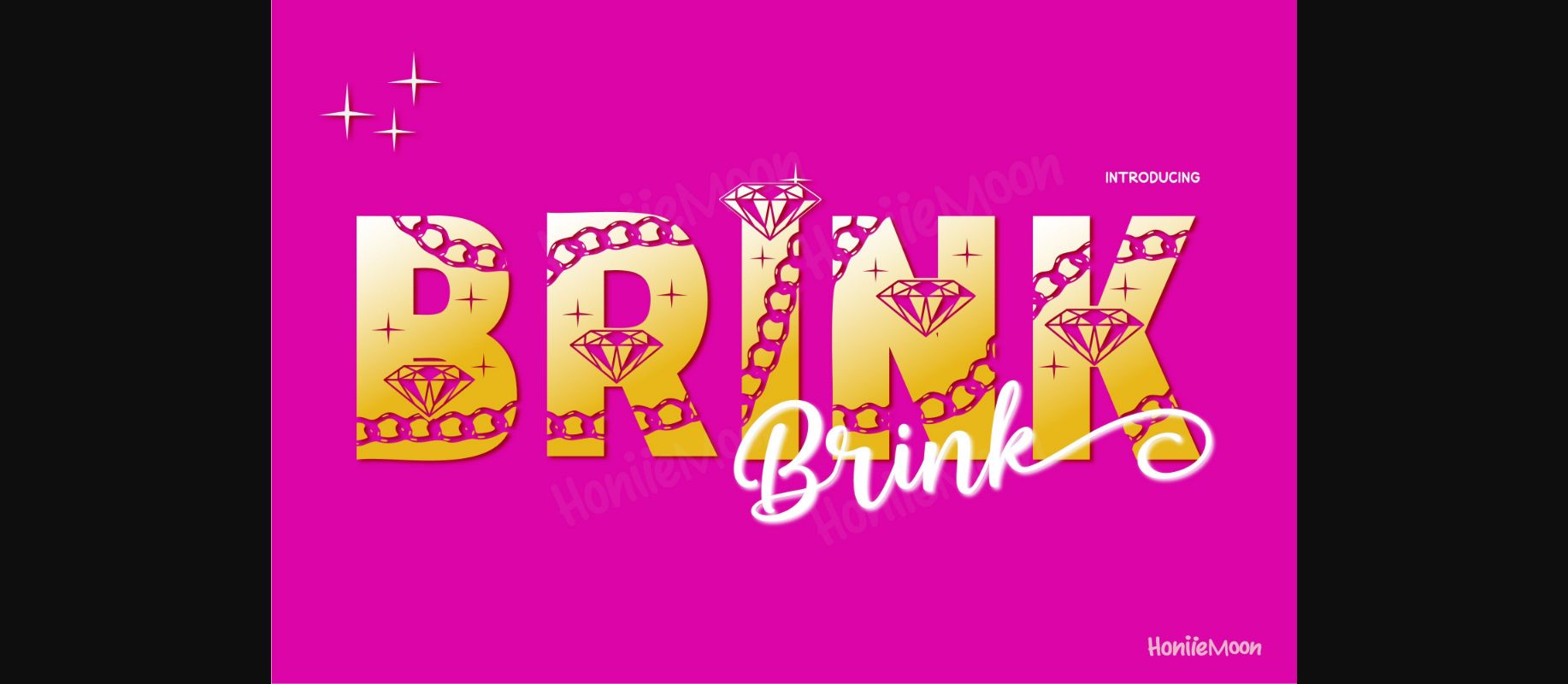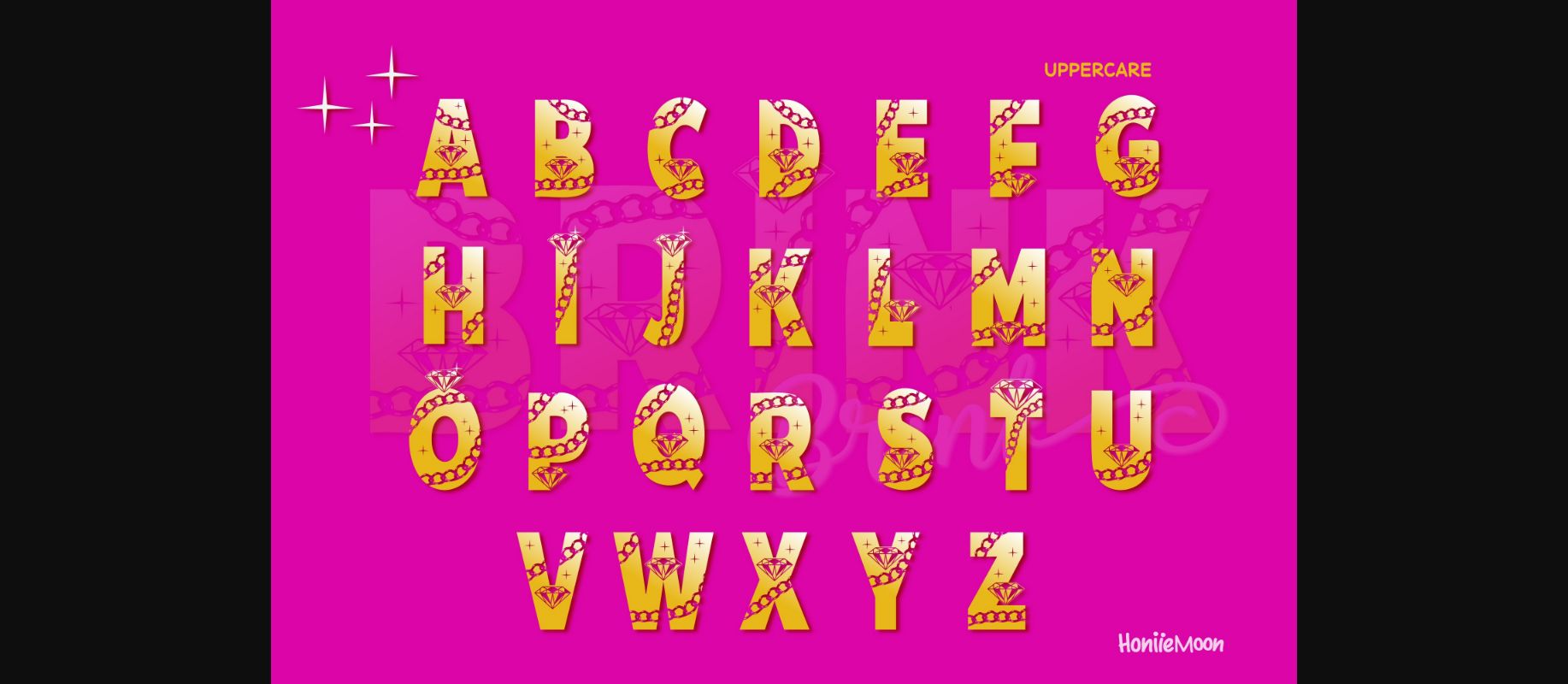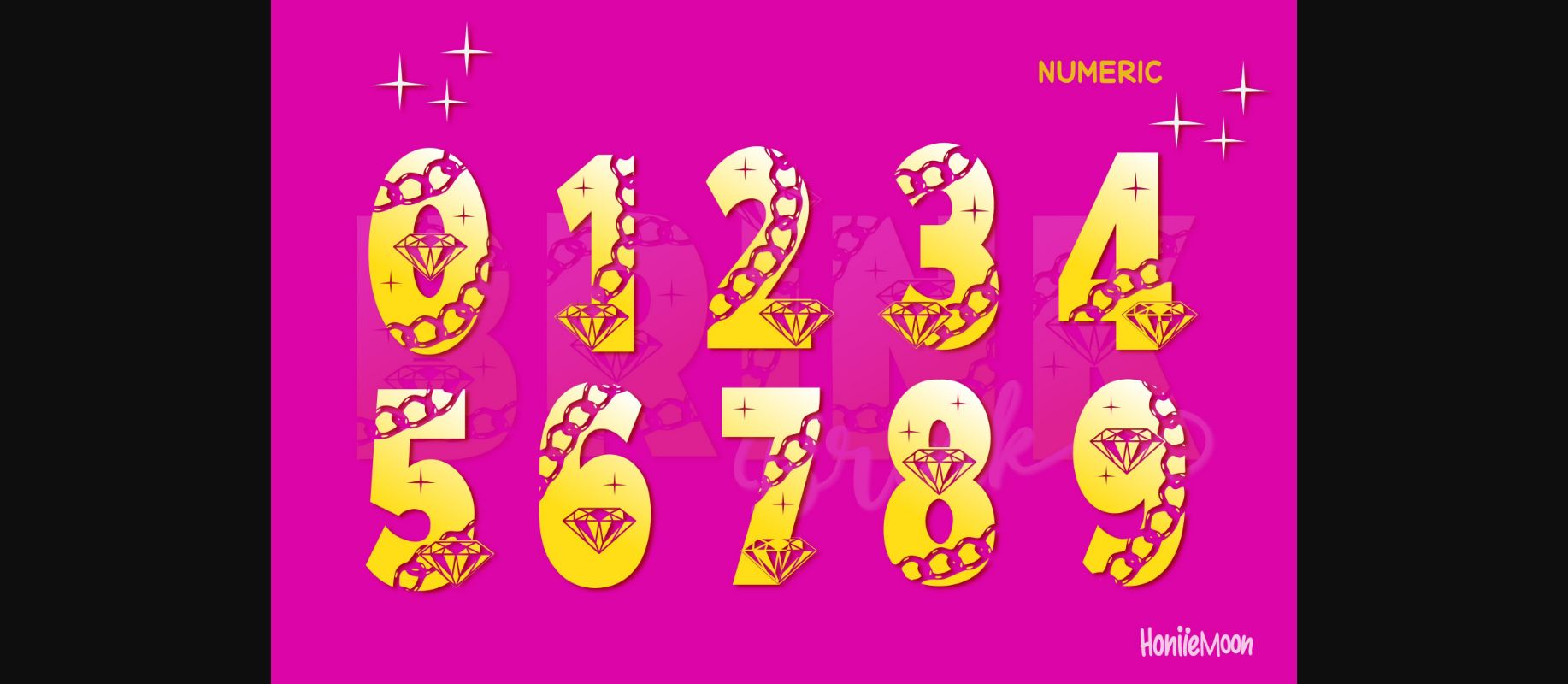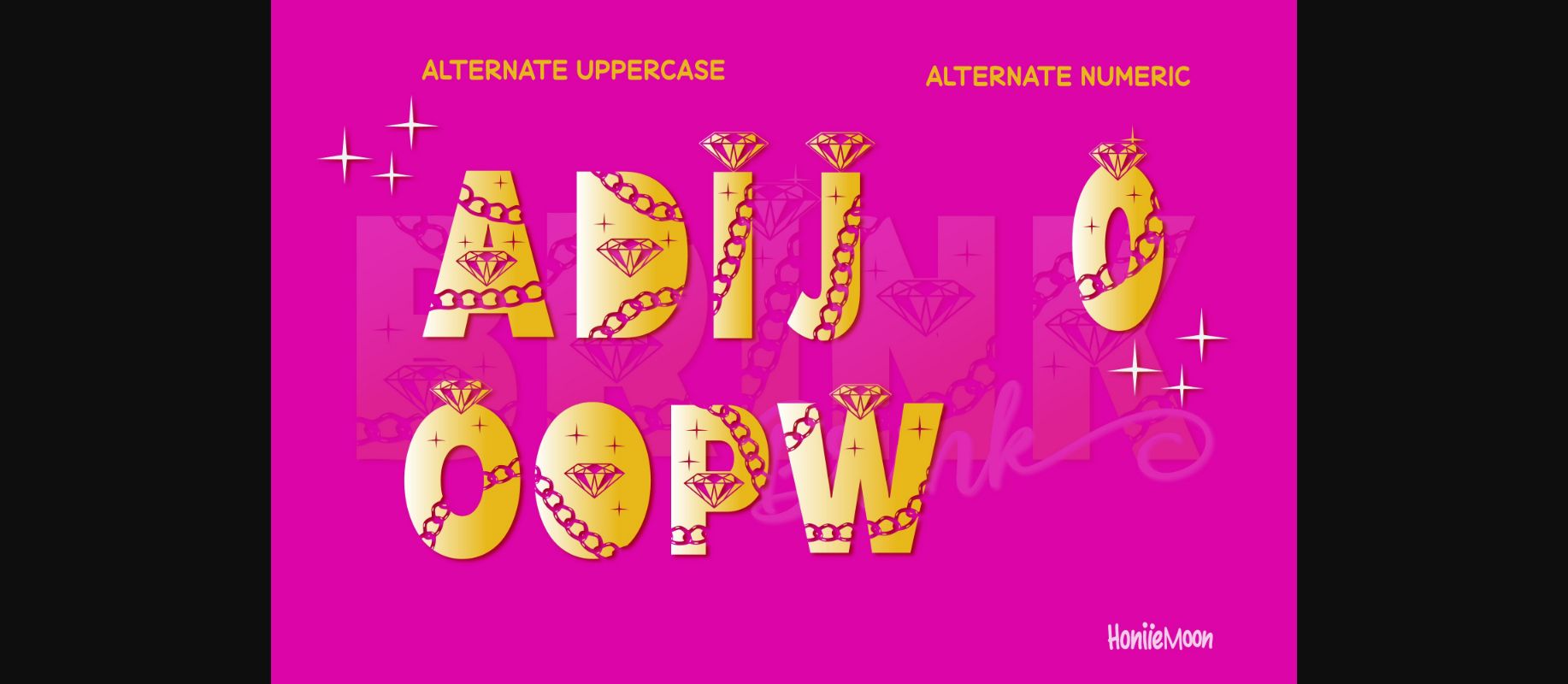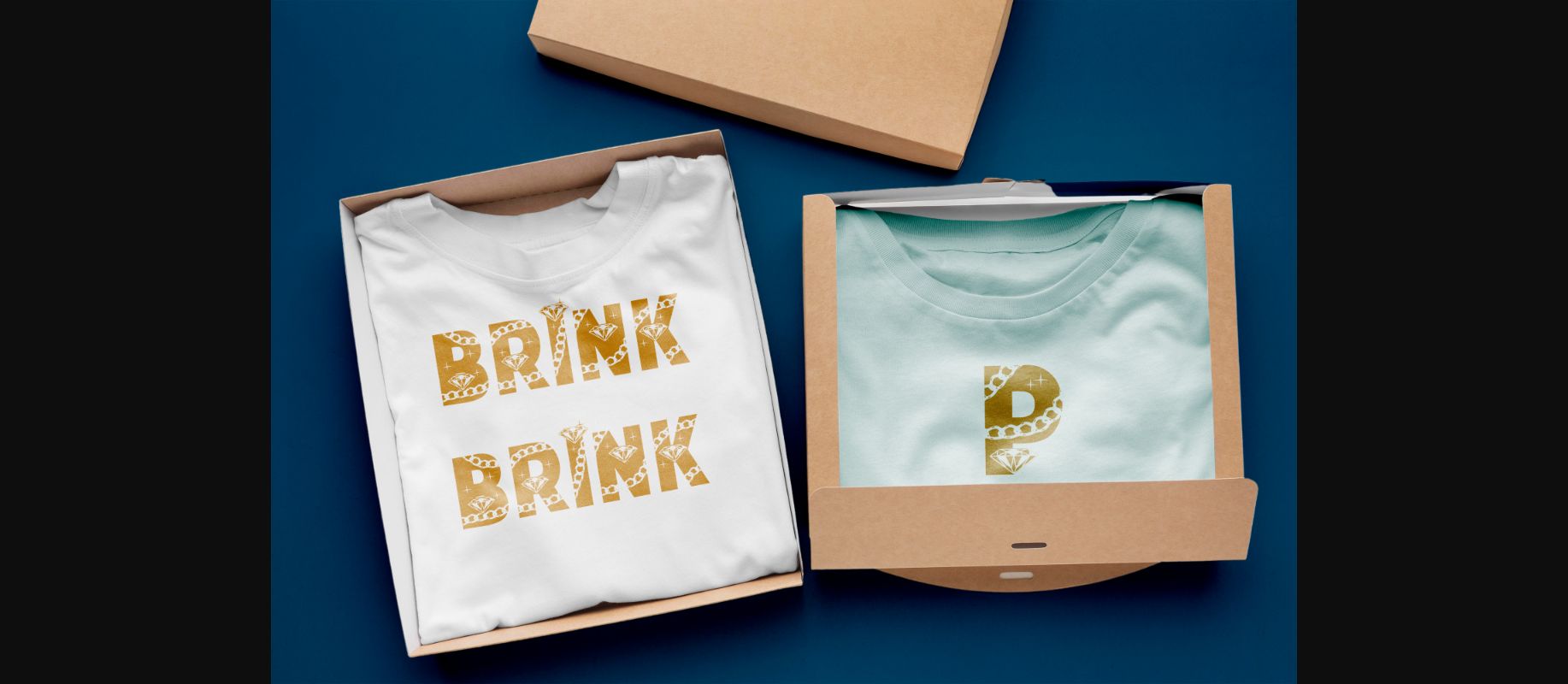
HomeDecorative FontsBrink Brink Font Decorative Fonts Brink Brink Font FacebookXPinterestWhatsApp 1 of 7 ... Brink Brink Font Poster 2... Brink Brink Font Poster 3... Brink Brink Font Poster 4... Brink Brink Font Poster 5... Brink Brink Font Poster 6... Brink Brink Font Poster 7... About Brink Brink Font Brink Brink is a cool, original and fun decorative font. It looks both cute and authentic and it will enhance each of your designs. The only limit is your imagination. DOWNLOAD NOW People also explored Raccoon Font Nocturnal Script Font Renaldysta Signature Font Nicko Font Ganerha Authentic Font Molly Script Floristy Font Snow Deer Font Lgbtq Rainbow Font 296 0 TagsBrink Brink Font Previous articleGolf Club FontNext articleCamp is Life Font LEAVE A REPLY Cancel reply Comment: Please enter your comment! Name:* Please enter your name here Email:* You have entered an incorrect email address! Please enter your email address here Website: Save my name, email, and website in this browser for the next time I comment. Personal Use Free Zroest Personal Use Free Read more about this font Predators Personal Use Free Read more about this font Rosebirth Personal Use Free Read more about this font The Royal Personal Use Free Read more about this font BLOG Using Fonts in Digital Marketing: Tips to Strengthen Your Brand Identity In the realm of digital marketing, every visual element plays a crucial role in shaping a brand's identity, and fonts are no exception. The... The 10 Best Handwriting Fonts to Add Personality to Your Designs To increase your work productivity, choose the most readable fonts. Elegant Wedding Invitation Fonts – Handwritten & Script Fonts